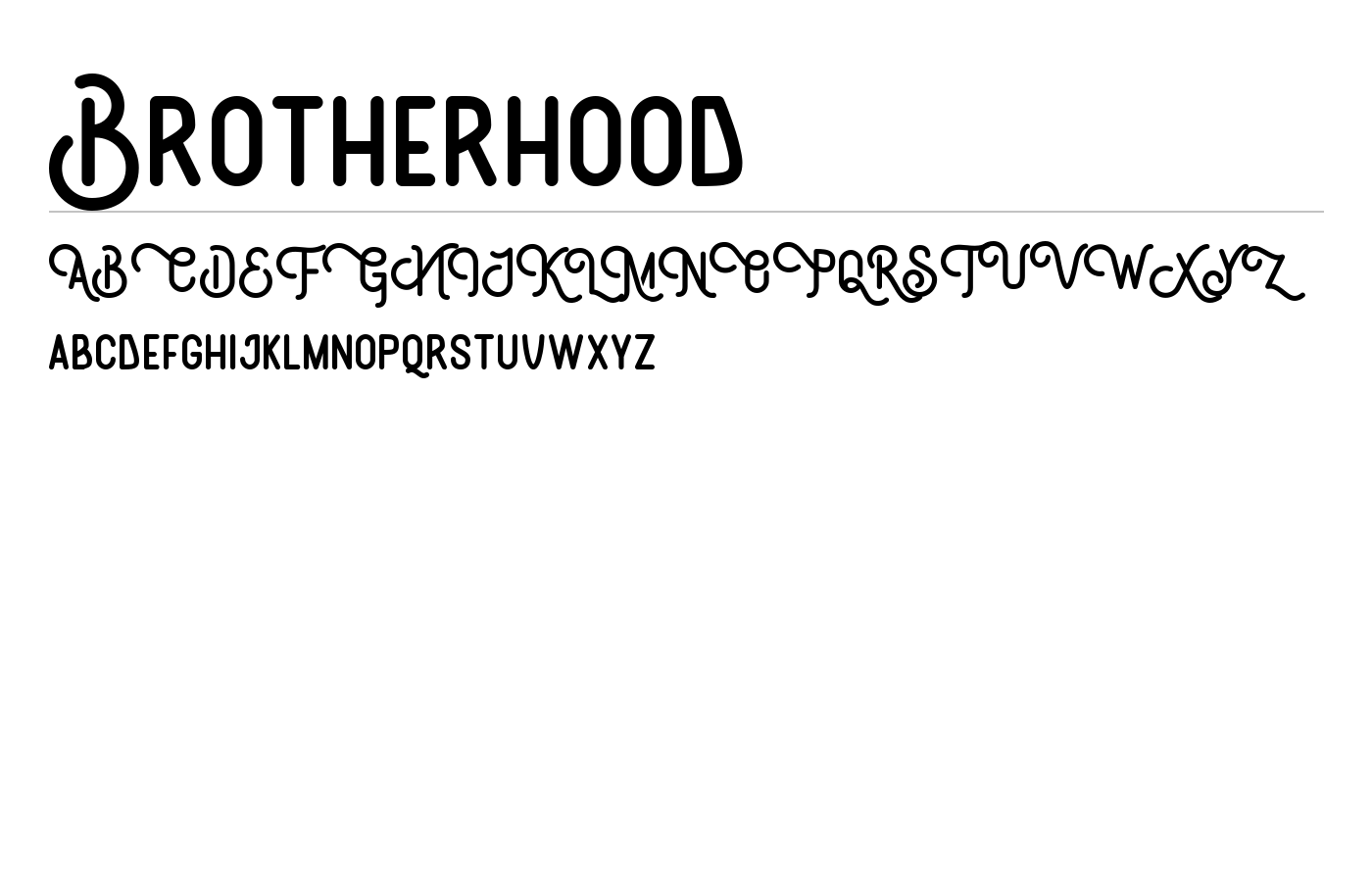
Brotherhood Font is a playful and modern sans serif typeface with rounded edges and a friendly, approachable feel. Its unique uppercase letters include decorative swashes and loops, adding a whimsical and creative touch that makes it ideal for eye-catching headlines, logos, and branding projects seeking a lively yet clean appearance. This font works well when you want to convey creativity and warmth while maintaining readability.
Brotherhood Font
About Brotherhood Font